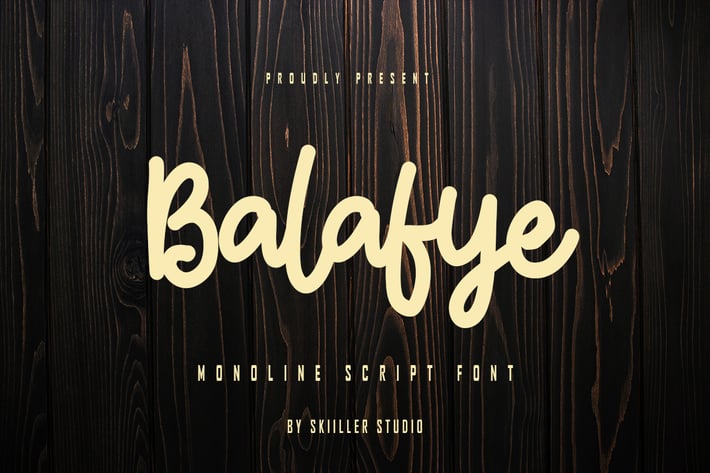
Balafye - monoline script font
Balafye is a Monoline Script font, described by an elegant touch, perfect for your favorite projects. Fall in love with its incredibly distinct and timeless style and use it to create spectacular designs!